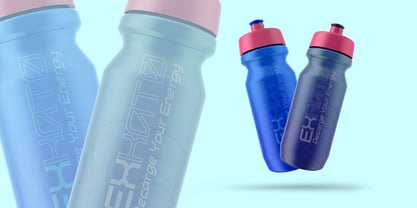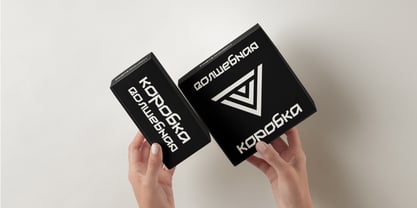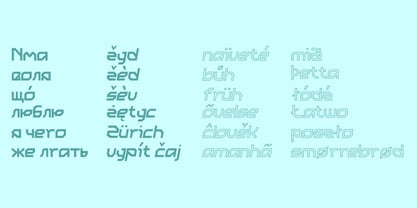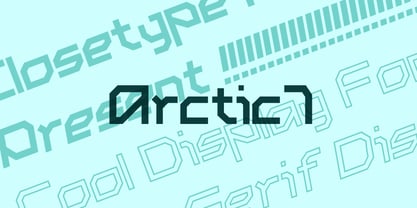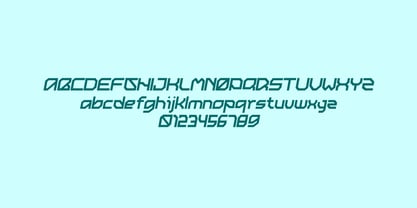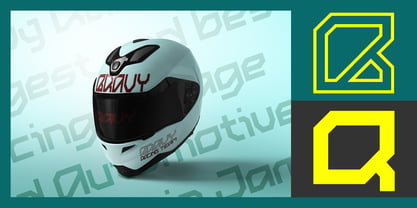
Arctic7
by Closetype
The Arctic7 Display Font Family is a futuristic font designed by Fajar Septianto and published by Closetype. Arctic7 contains 4 styles and family package options, offering bold, modern letterforms with sharp edges and sleek curves that make it ideal for technology-driven designs, sci-fi themes, and standout headlines. With its versatile styles, Arctic7 allows designers to create dynamic visual hierarchies while maintaining a cohesive, futuristic aesthetic across various media.
Designers: Fajar Septianto
Current Foundry: Closetype